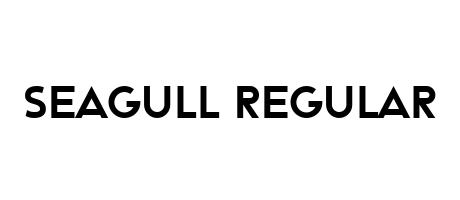
Seagull
Seagull Regular: A bold, sans-serif typeface, Seagull Regular exudes confidence and modernity. Its clean lines and consistent weight create a sense of stability and readability. The letters are geometrically precise, yet possess a friendly, approachable quality. It's a versatile font suitable for headlines or body text, equally at home in a sleek logo or a lengthy article.
Seagull Regular